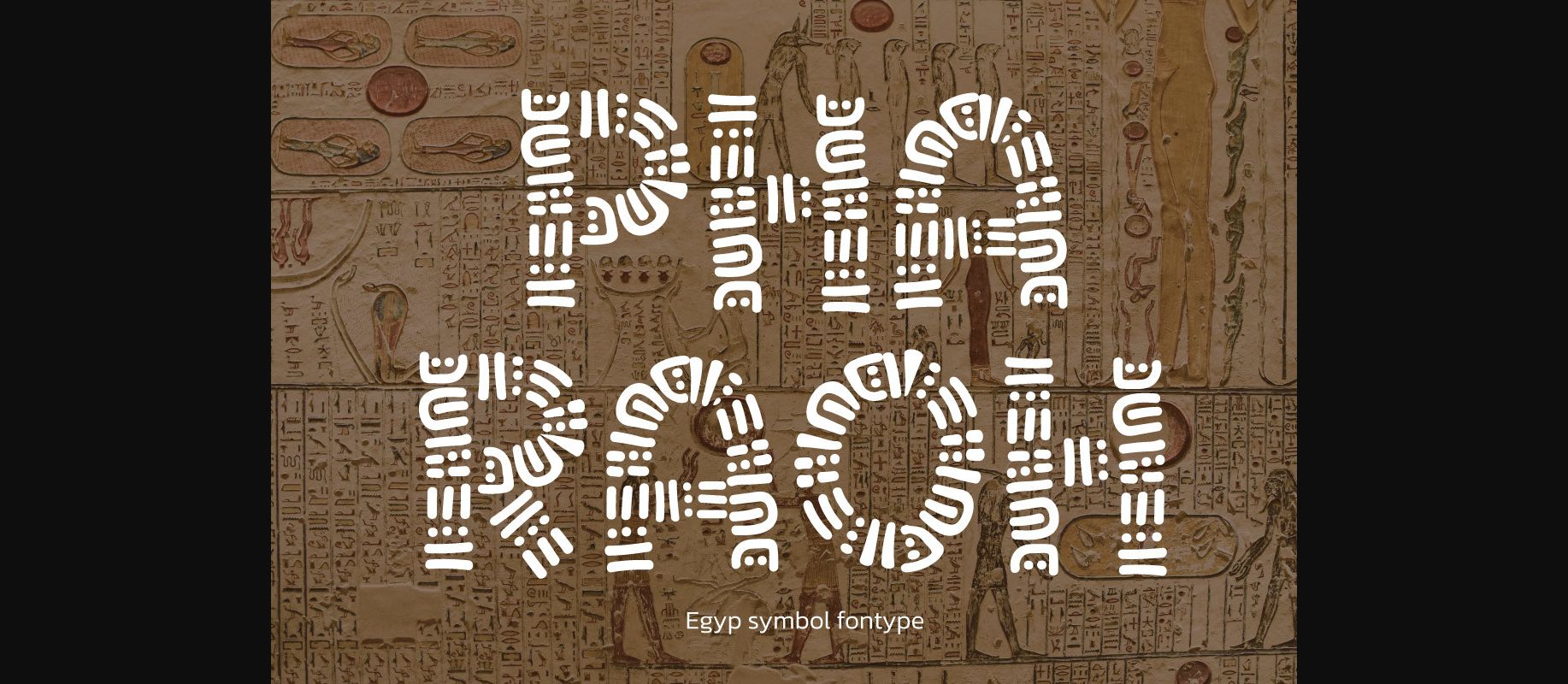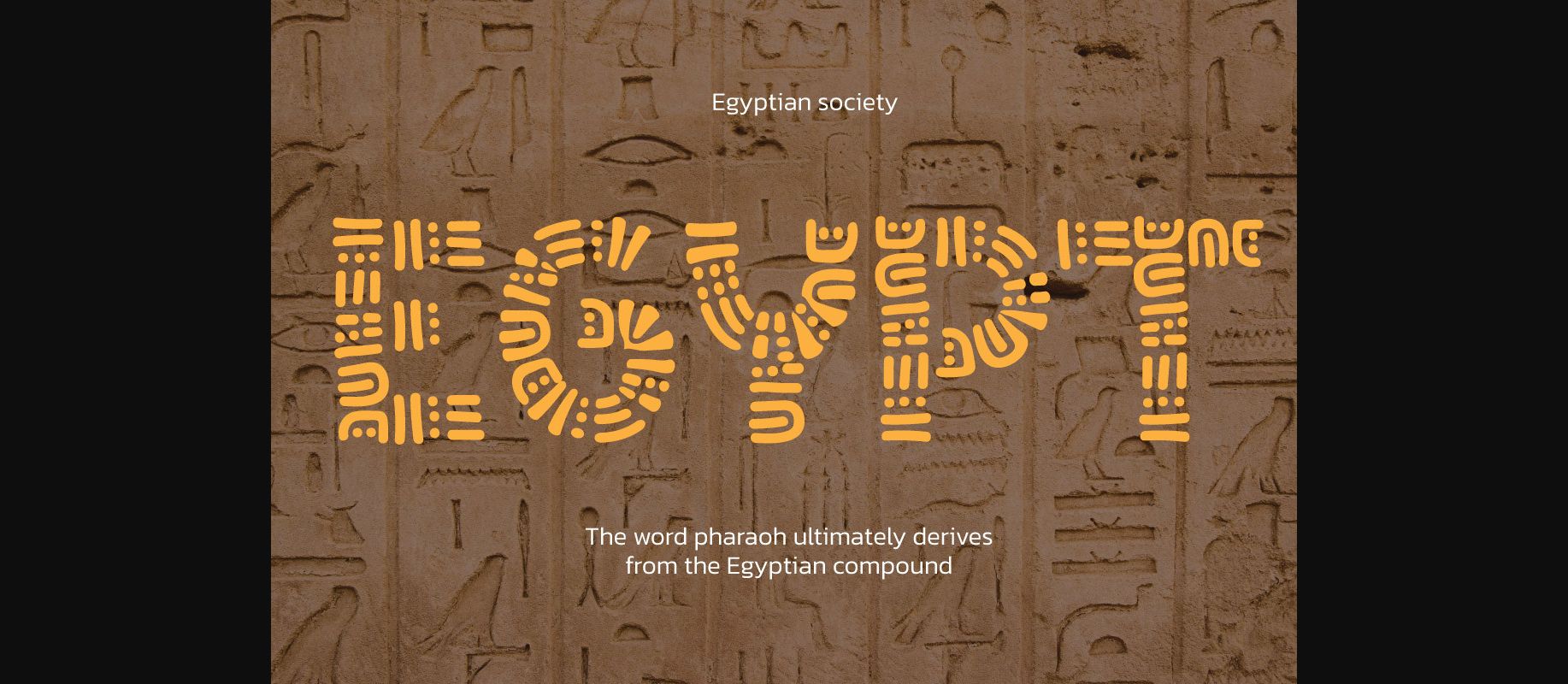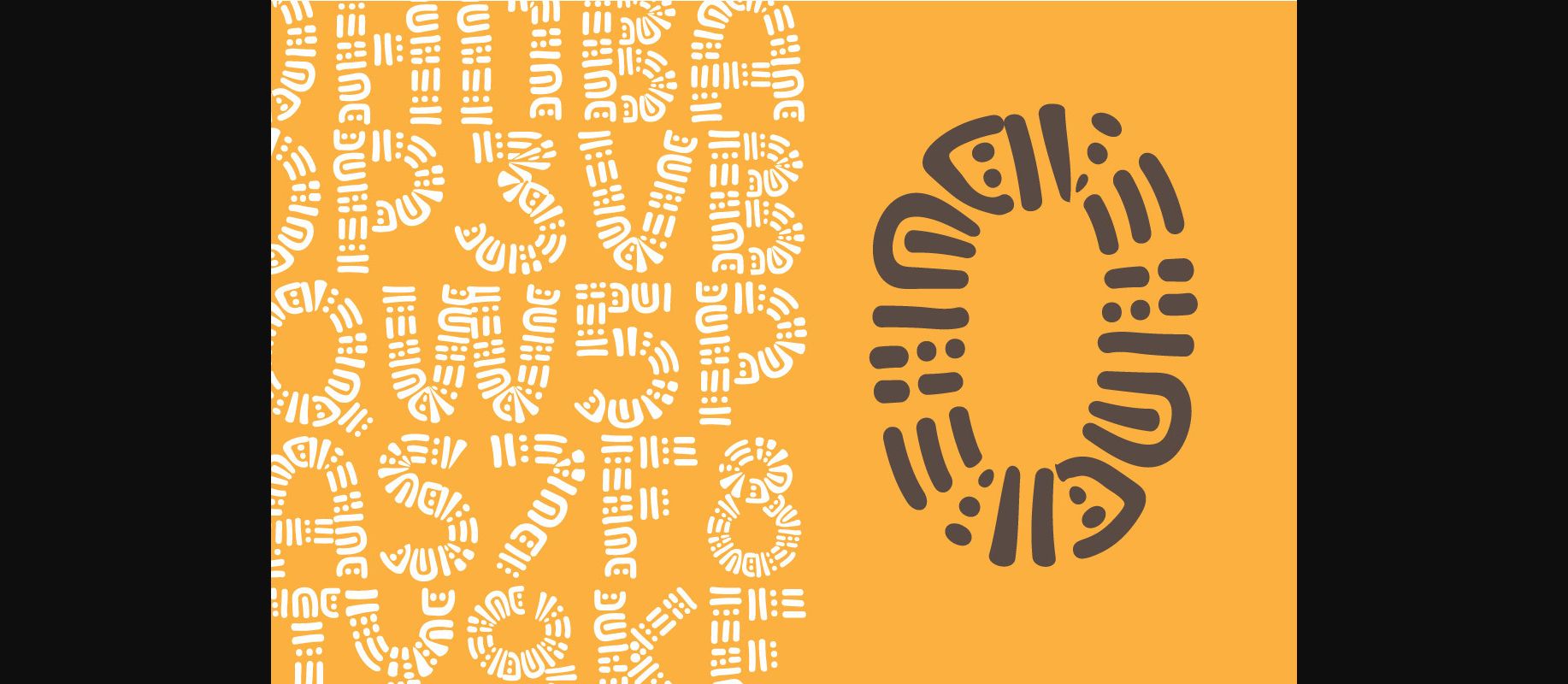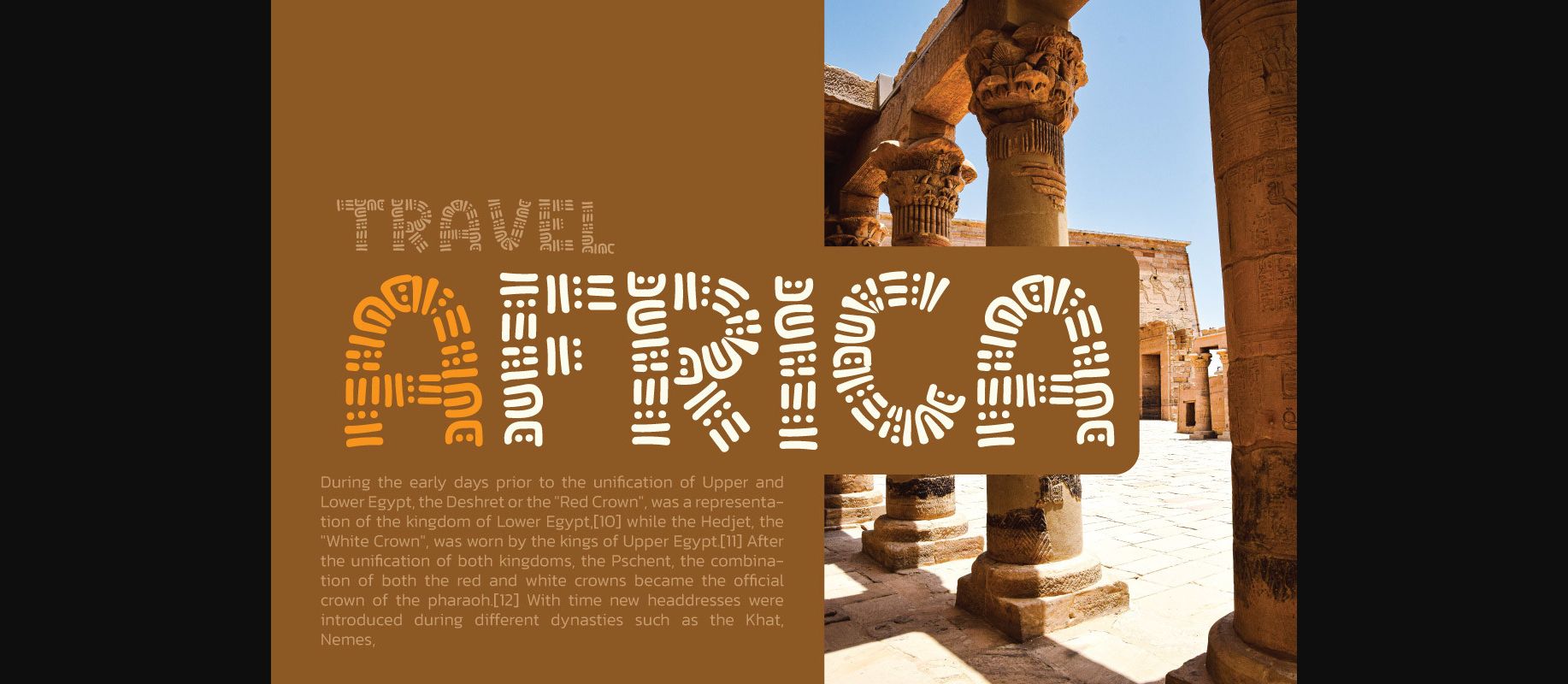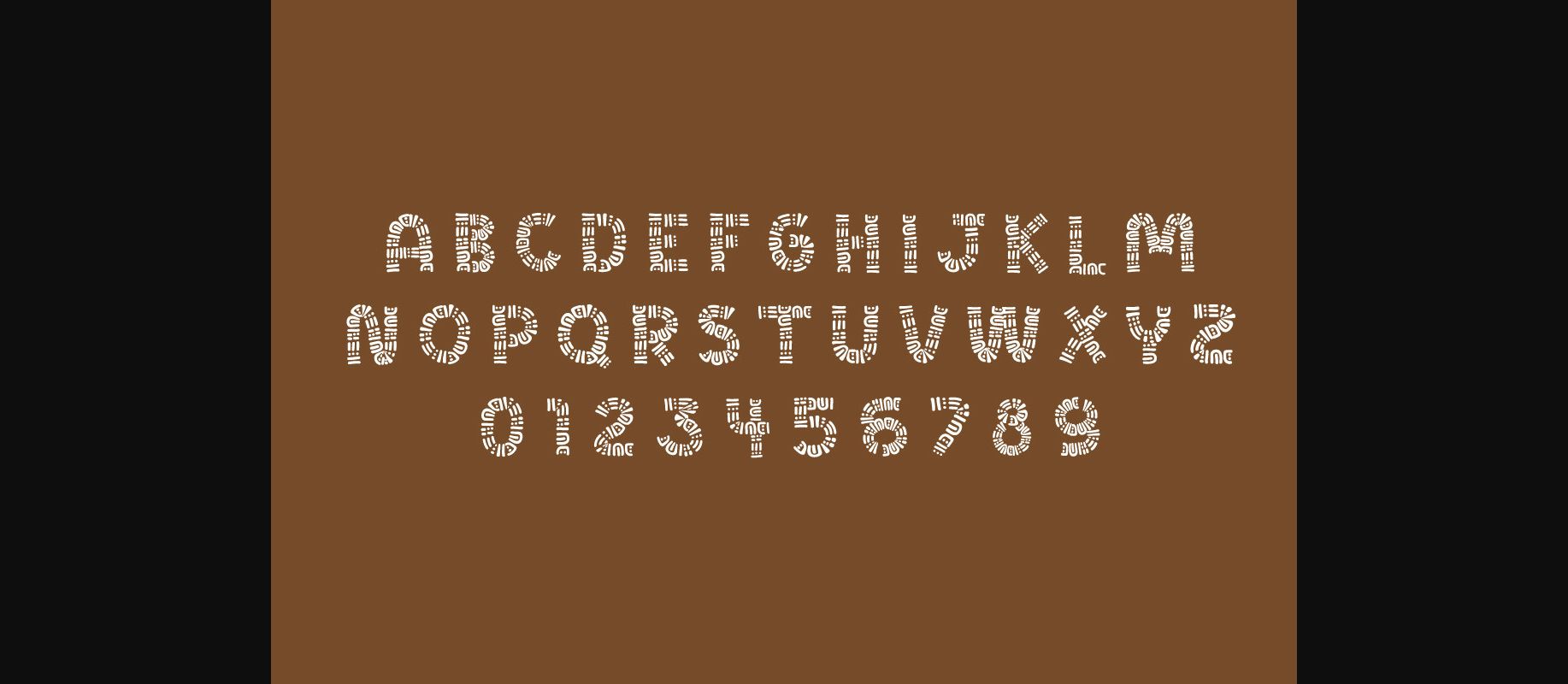
Pharaoh Font
About Pharaoh Font
Pharaoh is vintage African sign font style.
Pharaoh is perfect for any titles, logo, product packaging, branding project,
megazine, social media, wedding, or just used to express words above the background.